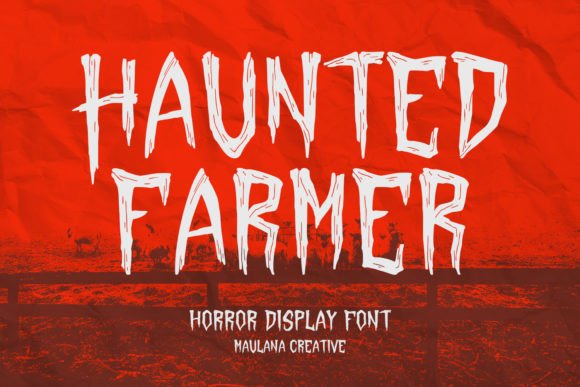
Journey into the eerie and captivating world of Haunted Farmer Font, a display font family that exudes horror and intrigue. This font beckons you with its bold contrast strokes, playful characters, and a touch of ligatures and alternates that add depth and personality to your designs.
With Haunted Farmer Font, you'll unleash a font that commands attention and leaves a lasting impression. Its meticulously crafted design makes it perfect for logo designs, social media posts, movie titles, book titles, and even lengthy texts. Whether you're creating a logo for a horror-themed project or designing a poster for a spine-tingling film, Haunted Farmer Font is the perfect choice.
Embrace the dark side of creativity with Haunted Farmer Font. Its versatility extends beyond the horror genre, making it a striking choice for projects that require a touch of mystery, intrigue, or simply a bold and unconventional look.